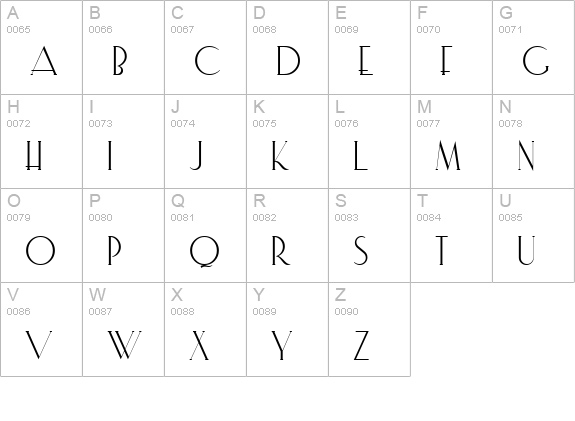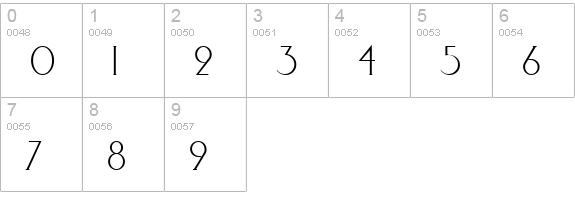
Elisia Regular is the standard, neutral variant in the Elisia typeface family \xE2\x80\x94 well suited to general body text, paragraphs, and standard typographic work.
Elisia Regular font is a versatile and elegant typeface that exudes sophistication and modernity. Its sleek lines and balanced proportions make it suitable for a wide range of design projects, from branding to editorial layouts. The font's clean and timeless aesthetic ensures readability while adding a touch of refinement to any text. What sets Elisia Regular font apart is not only its aesthetic appeal but also its accessibility. This high-quality typeface is available for free download at FontsMarket.com, making it an excellent choice for designers looking to elevate their work without breaking the bank. With its stylish yet approachable design, Elisia Regular font is sure to enhance any project it is used in, whether for print or digital media. Unlock your creativity and elevate your designs with the effortlessly chic Elisia Regular font, now freely available for download.